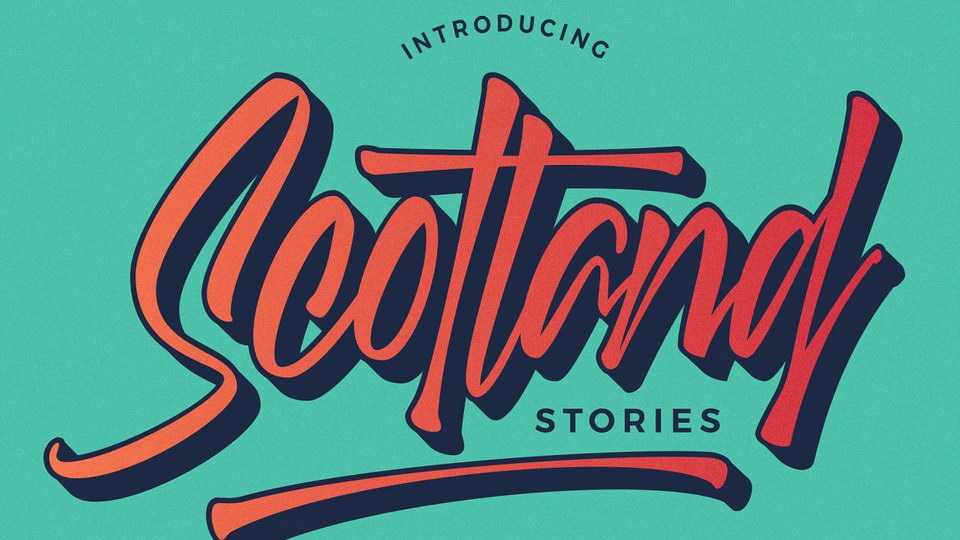
Scotland Stories Font › Fontesk – Download Grátis
Download Scotland Stories font, a modern script with fast brush strokes and signature style, making this font look unique and classy. Scotland Stories font looks great for logos, labels, lettering and more.
Designer: Redy Studio